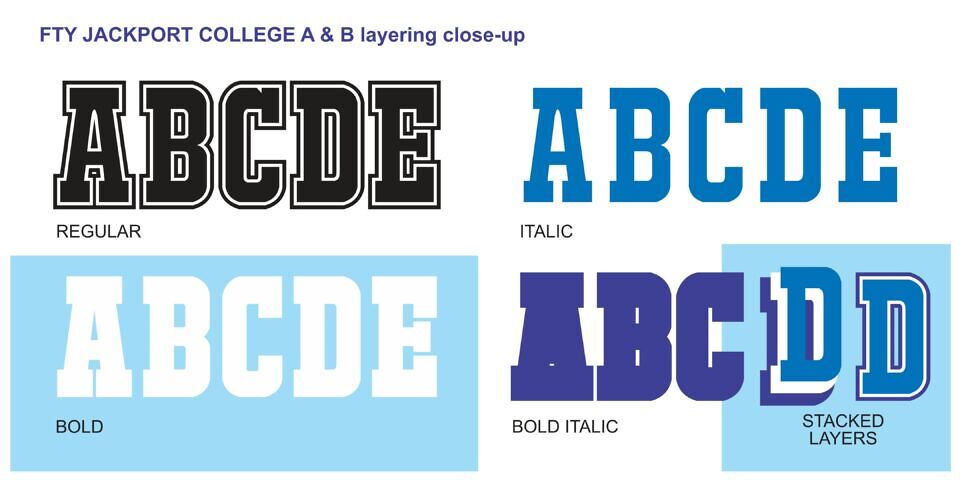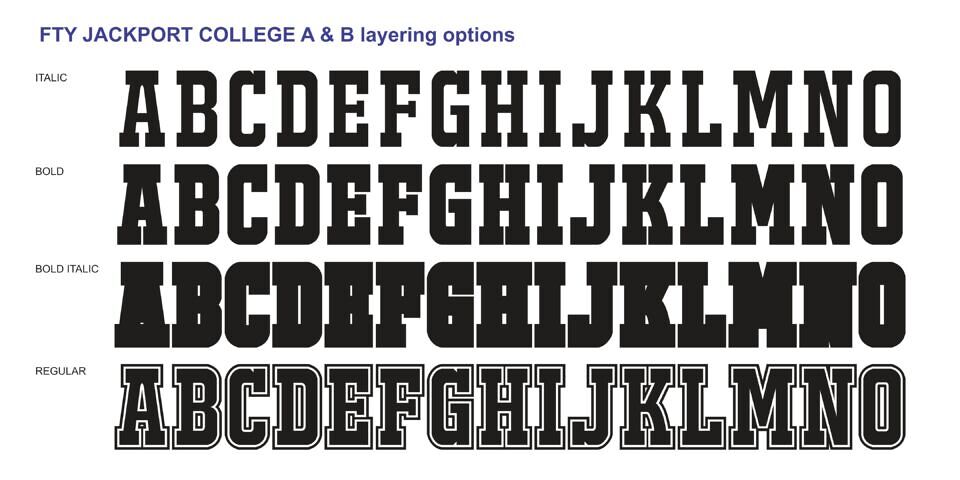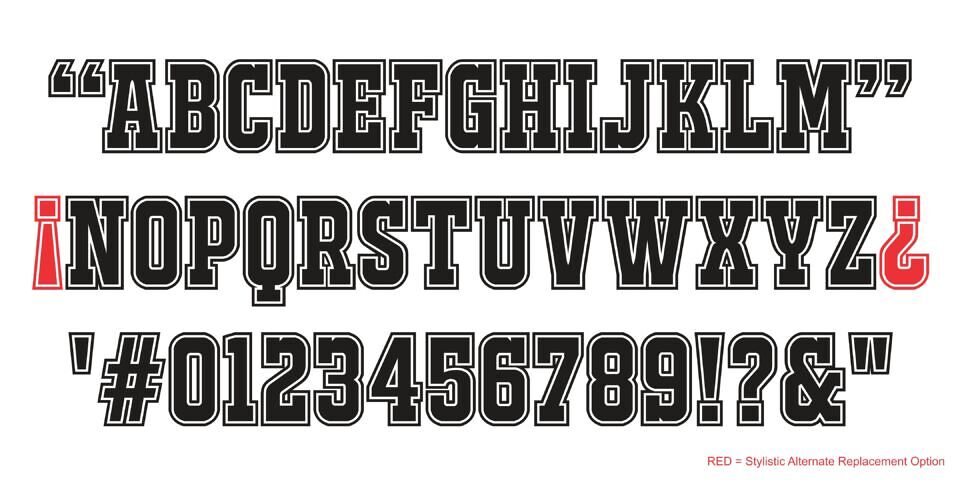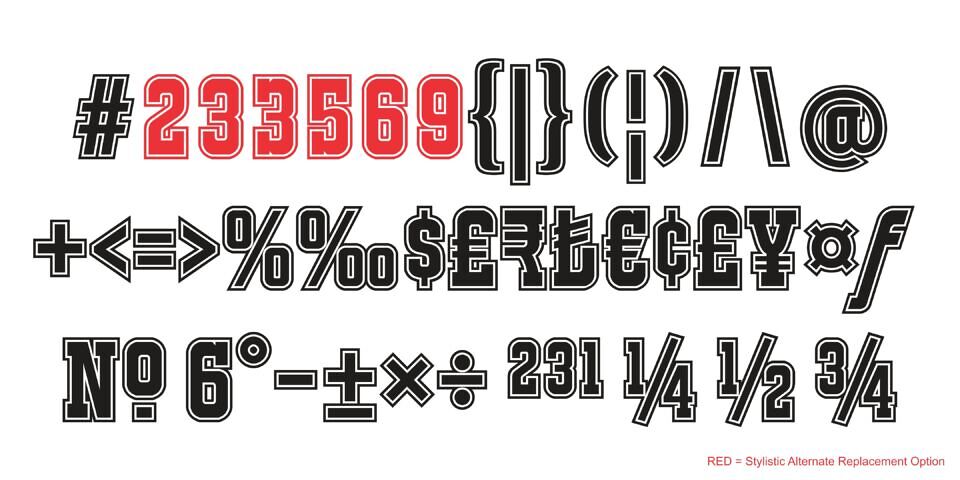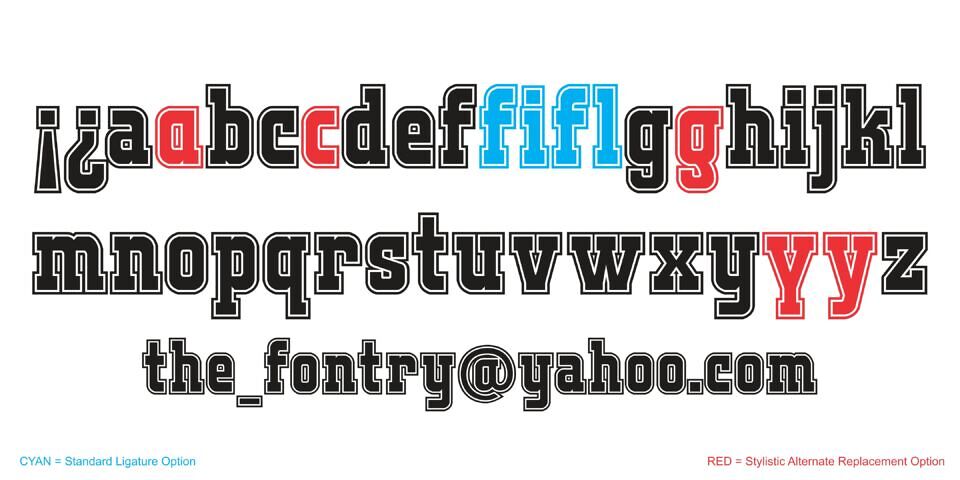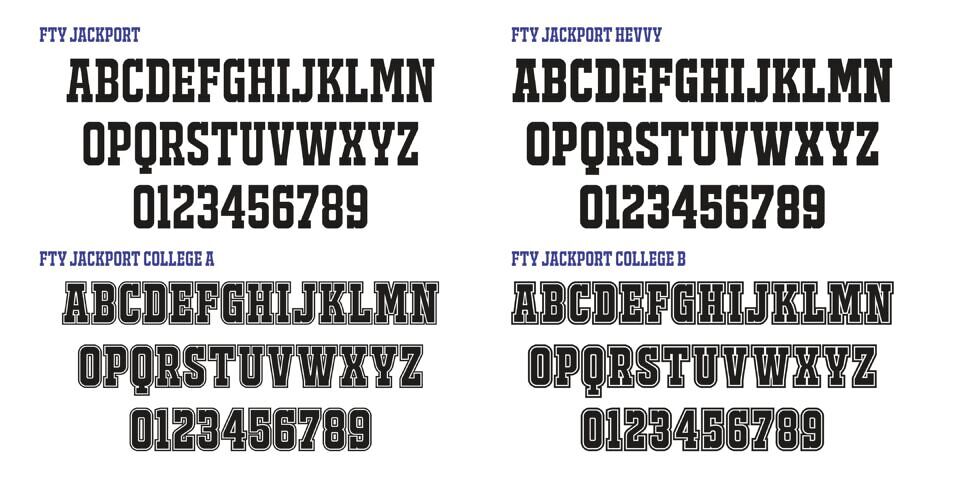
Jackport NCV Font
Jackport NCV, crafted by Fontry, is a Fancy Old School font family with three styles: College, Regular, and Greek.
Ideal for retro-inspired designs, it supports Latin-1, Latin Extended-A, Cyrillic, and Greek uppercase characters.